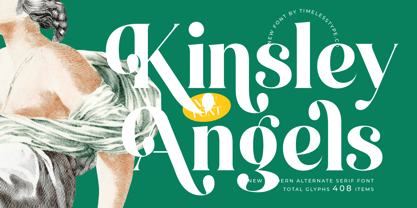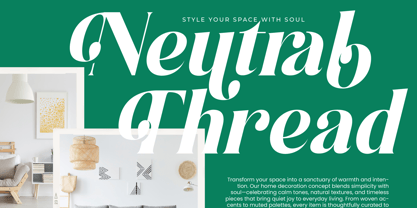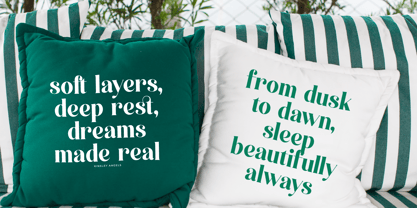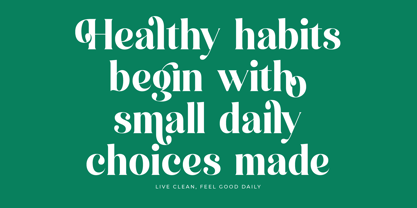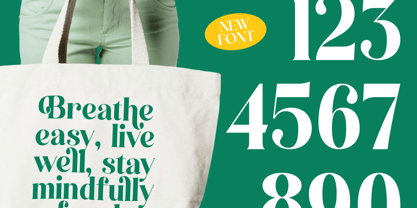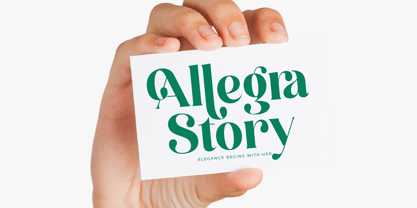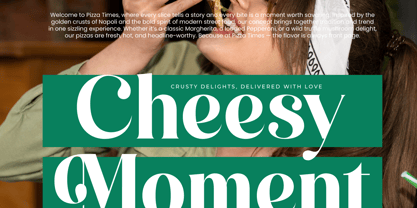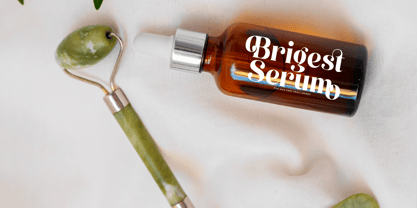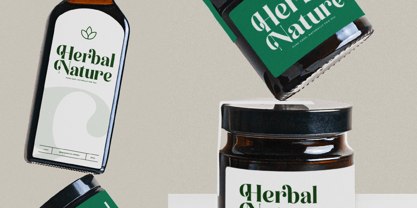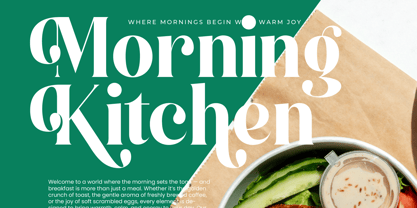
Kinsley Angels
par Timelesstype Studio
La famille de polices Kinsley Angels a été conçue par Heru Utama Putra et publiée par Timelesstype Studio. Kinsley Angels contient 2 styles et options de package familial.
Kinsley Angels - New Modern Alternate Serif Font , from Timelesstype, Suitable for any projects such as: logos, branding projects, homeware designs, product packaging, mugs, quotes, posters, shopping bags, t-shirts, book covers, name card, invitation cards, greeting cards, label, photography, watermark, special events, and all your other luxury and beautiful projects that need a Luxury Serif taste.